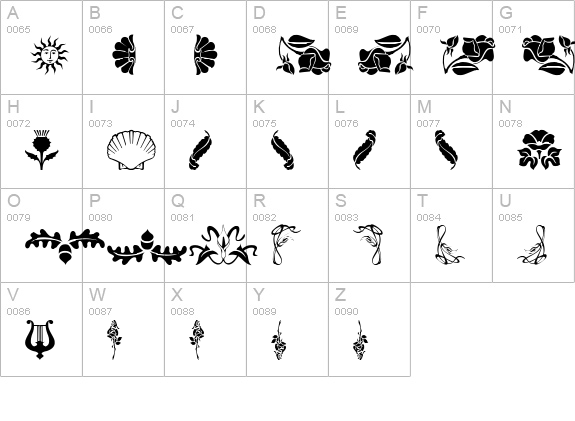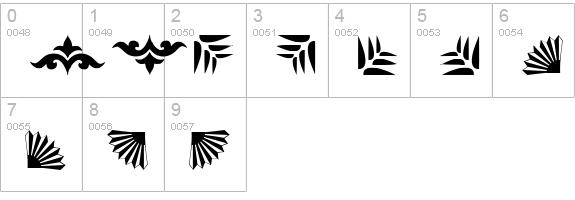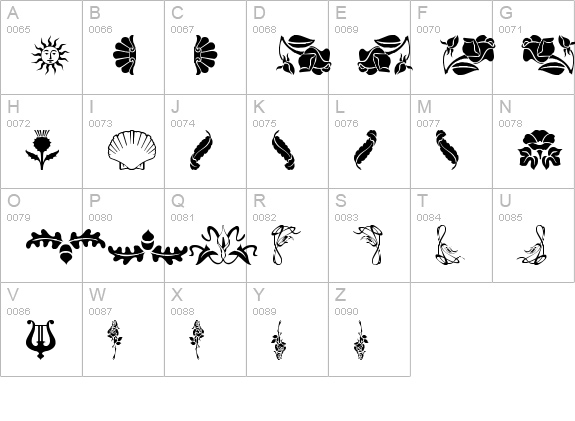
FloraDings Font Details
FloraDings font is a playful and whimsical typeface that brings a touch of nature to your design projects. Featuring intricate floral patterns and botanical elements, this unique font is perfect for adding a decorative flair to invitations, greeting cards, posters, and more. With its delicate and intricate details, FloraDings font is sure to make your designs stand out. Best of all, FloraDings font is available for free download at FontsMarket.com. Simply visit the website to access this charming font and start using it in your creative projects today. Don't miss out on the opportunity to add a touch of floral charm to your designs with FloraDings font - download it now and let your creativity bloom!